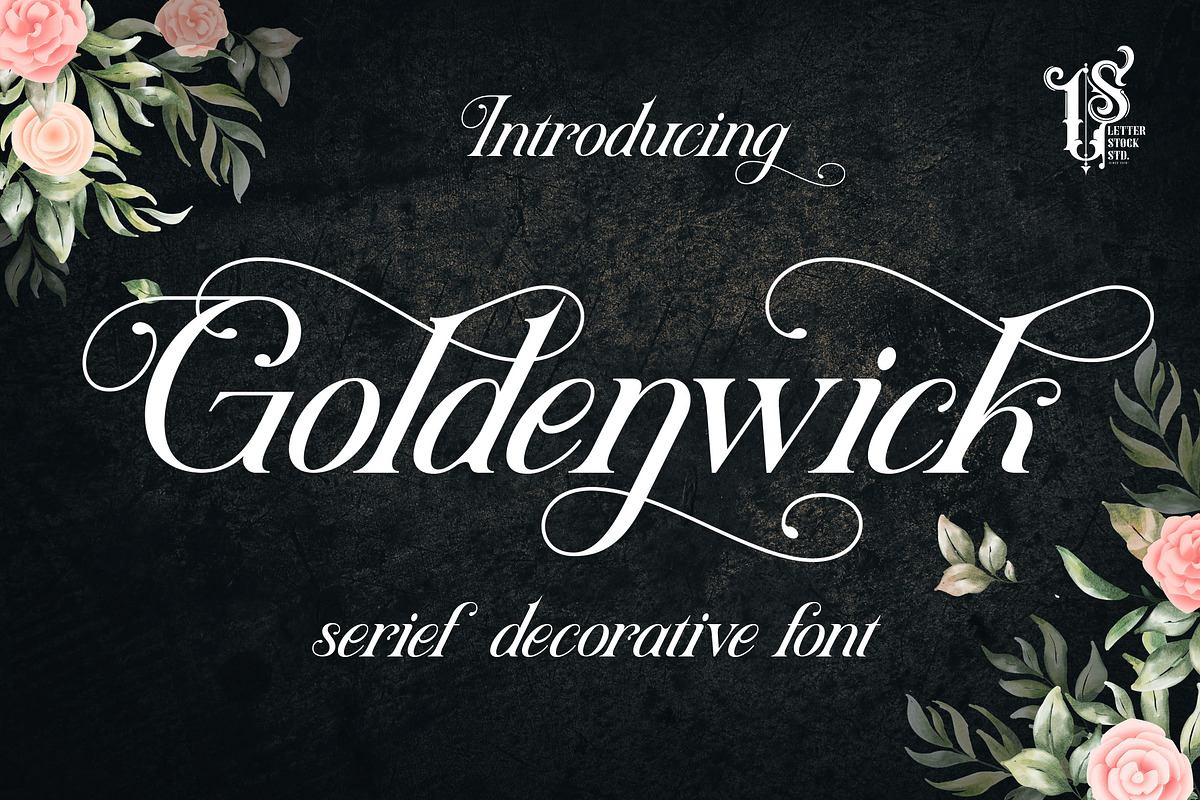
Goldenwick Font Free Download is a luxurious and vintage-inspired serif typeface with ornate details and a classic charm. Perfect for book covers, elegant logos, boutique branding, antique labels, and wedding invitations, this font brings a sense of old-world refinement with a modern edge. Its high-contrast strokes and decorative flair make every word feel timeless and grand.
Using the Goldenwick Font Free Download adds sophistication and storytelling to your design. Whether you're crafting a premium brand identity or designing packaging with a historical twist, Goldenwick delivers visual elegance and uniqueness that stands out.